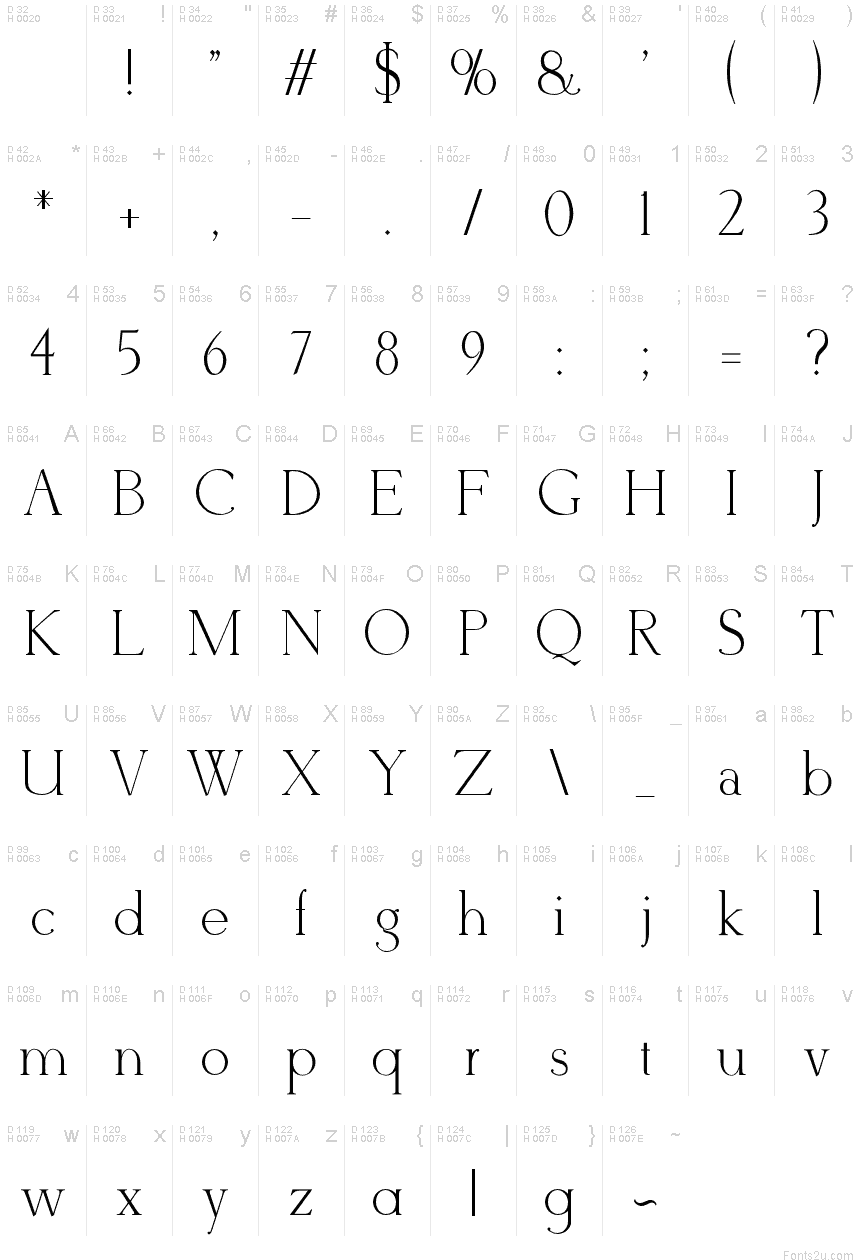
Derivia
Based off the public domain font "Livia Medium" by S.G. Moye 1992. Revised kerning, glyphs, size, metrics, and other tweaking.
This font is NOT public domain. I kept the same style and changed many letters, perfected minor problems, and put a good deal of time into making more profesional than it was originally (i.e. there was about 7 lowercase letters).